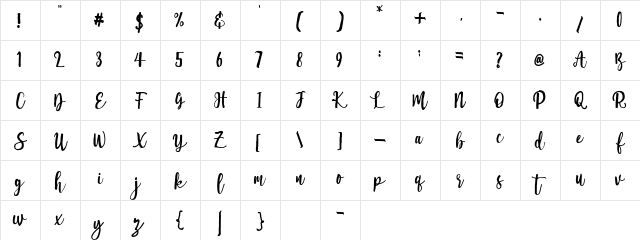
Romadhon Regular Free Font
Romadhon Regular
Designer: Rusdin Hendarsono
Design Context for Romadhon
Romadhon is a composed and adaptable typeface that performs quietly and consistently across a wide range of design contexts.